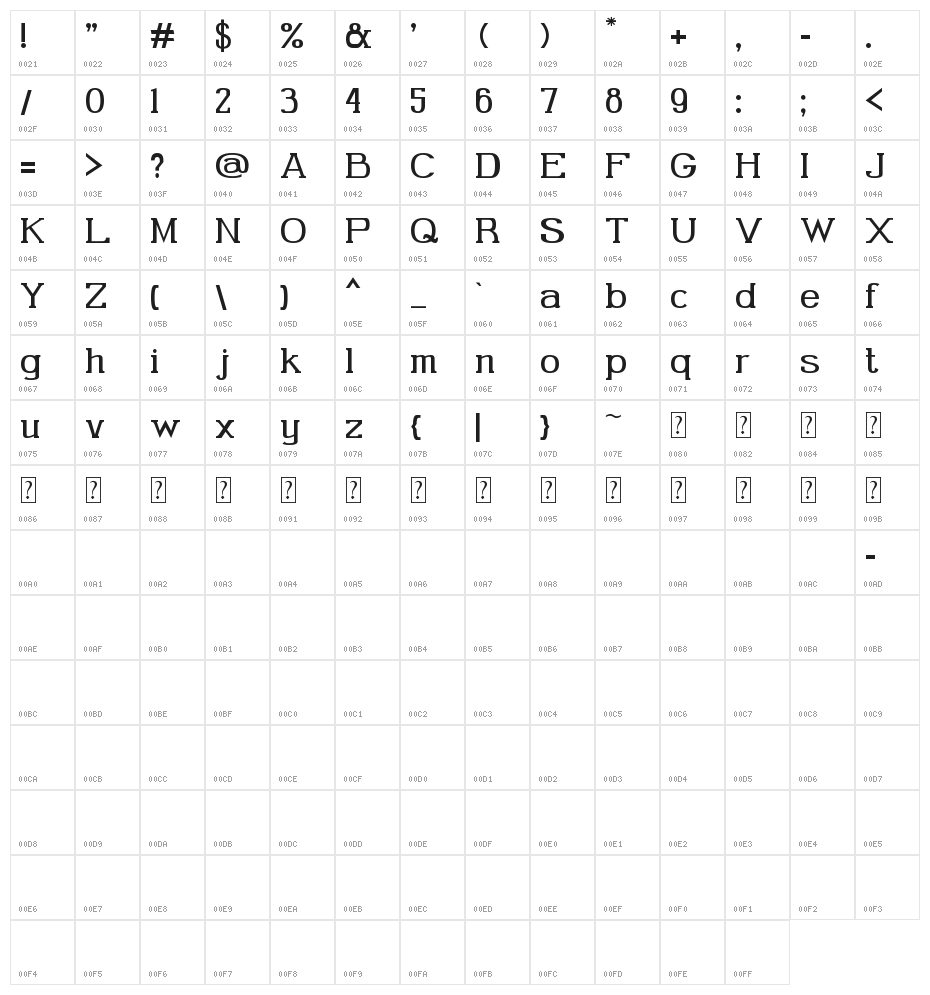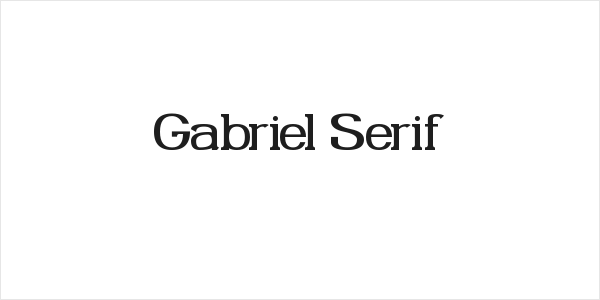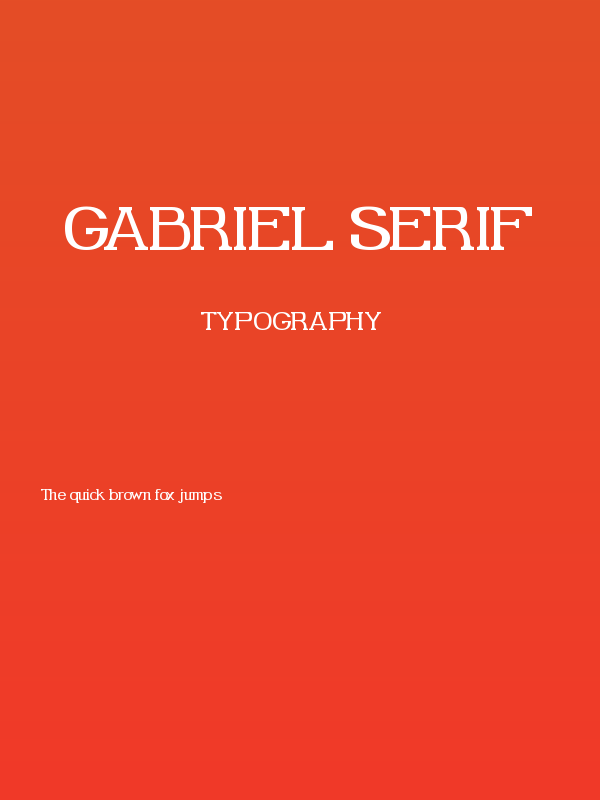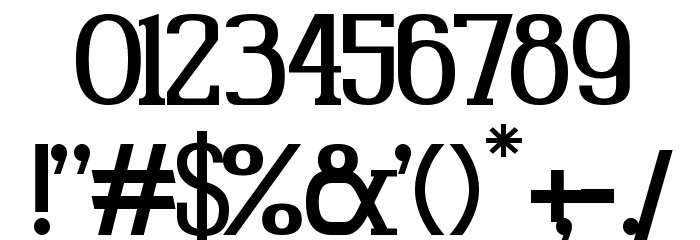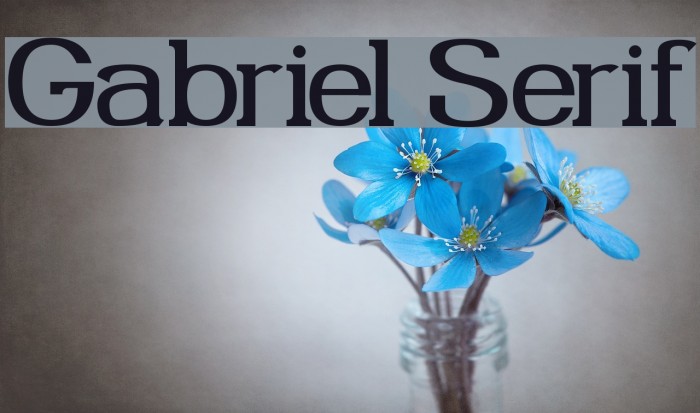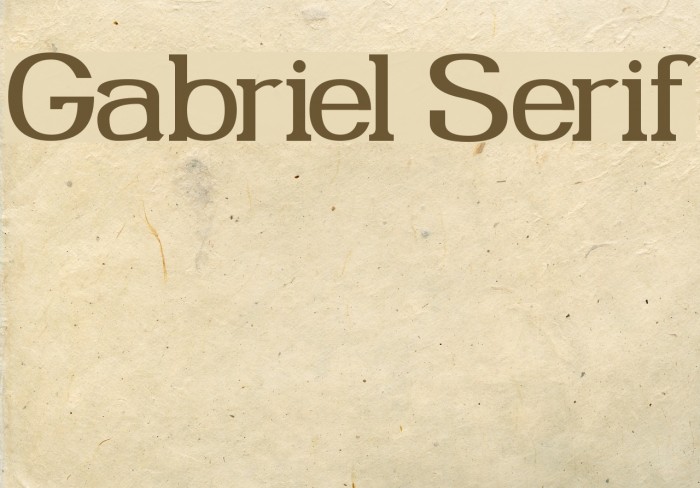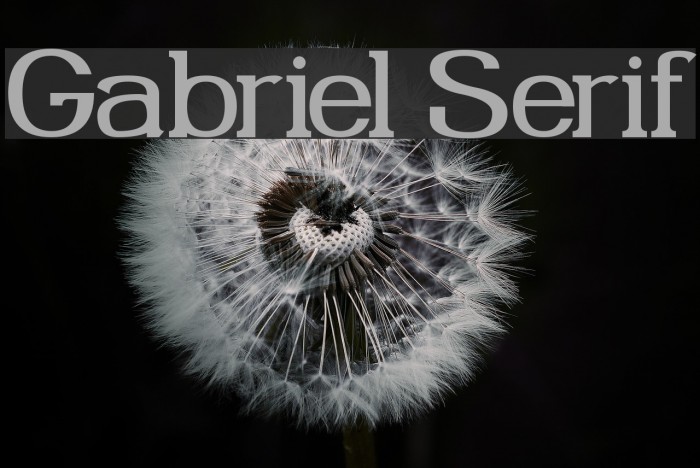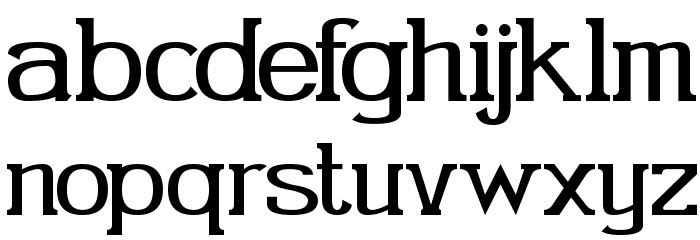
Gabriel Serif Font
Gabriel Serif Description
This serif typeface features a classic and elegant design with a modern twist. The uppercase letters are bold and commanding, with distinct serifs that add a touch of sophistication. The lowercase letters maintain a harmonious balance, offering a smooth reading experience. The numerals are clear and well-defined, making them suitable for both formal and casual contexts. Special characters are crafted with precision, ensuring versatility in various design projects. The overall appearance is both timeless and contemporary, making it a versatile choice for a wide range of applications.
| Proposed Projects | Ideal for editorial design, branding, book covers, and formal invitations. |